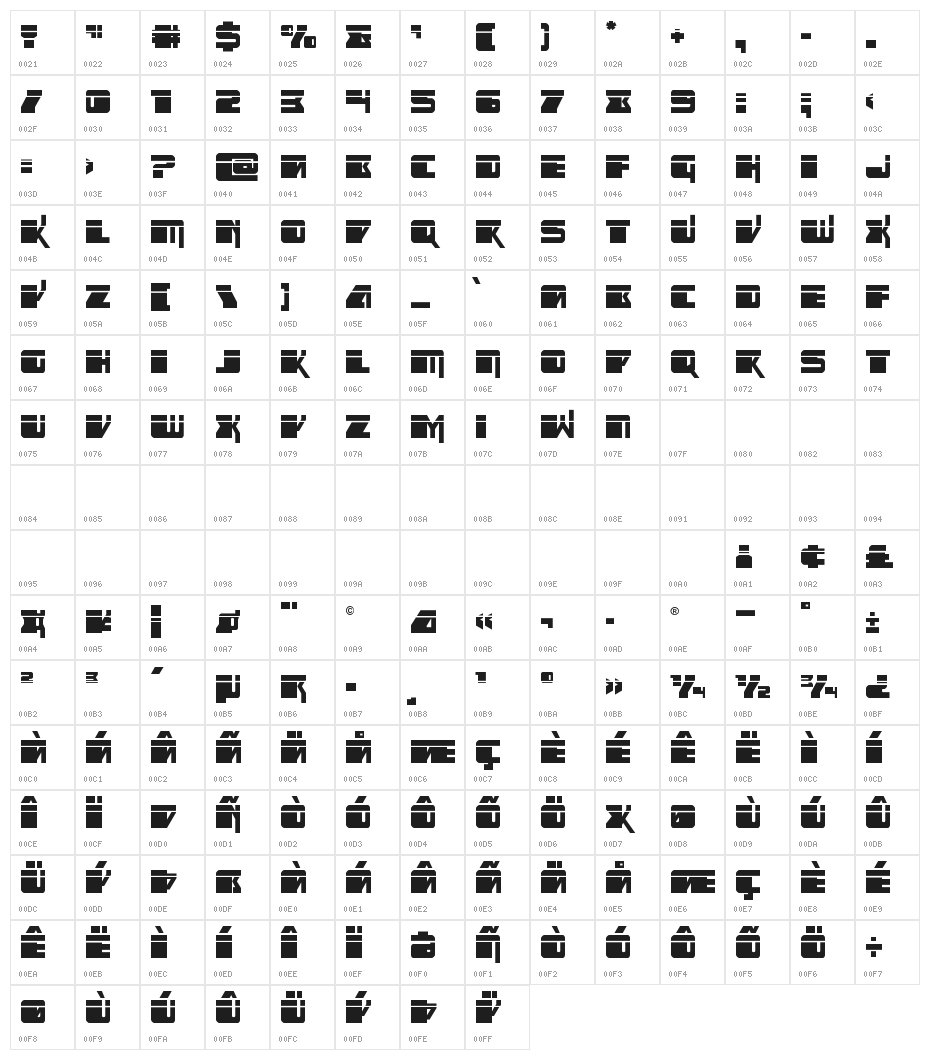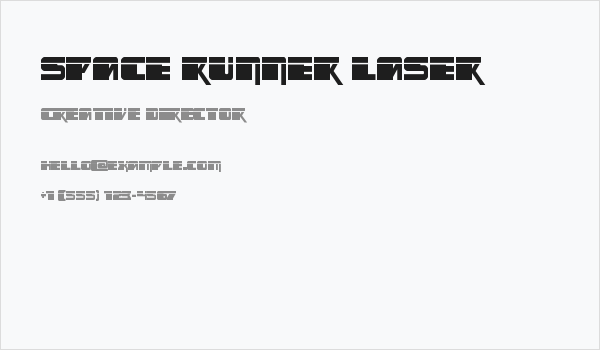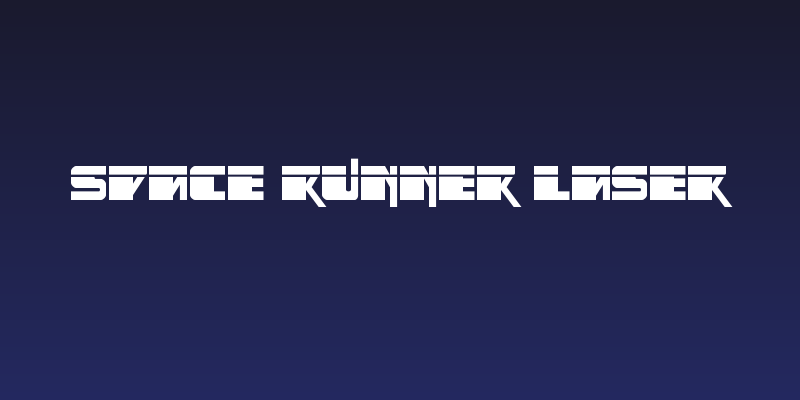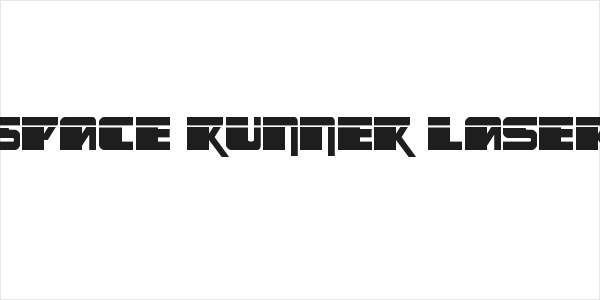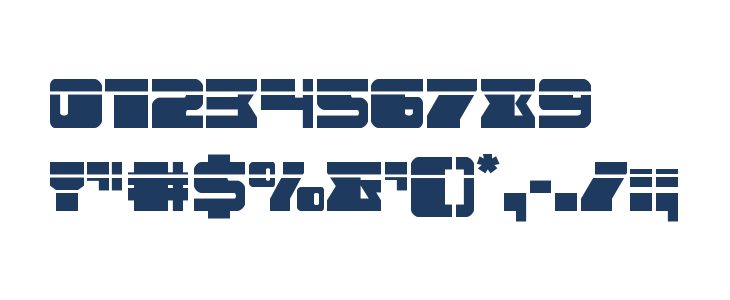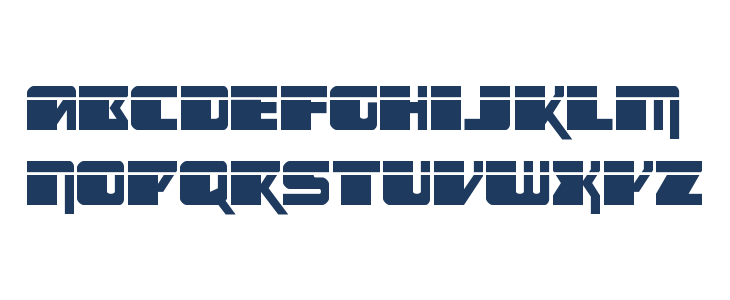
Space Runner Laser Font
Space Runner Laser Description
This font features a futuristic and bold design with a strong geometric structure. The characters are constructed with sharp angles and straight lines, giving it a distinctly modern and technological feel. The uppercase and lowercase letters maintain a consistent style, with a uniform height and width that enhances readability. The numbers and special characters are designed to match the overall aesthetic, making them suitable for digital and sci-fi themed projects. The font's unique style is ideal for creating eye-catching headlines or logos that require a modern and edgy appearance.
| Proposed Projects | Ideal for sci-fi themed designs, technology branding, video game titles, and digital media. |